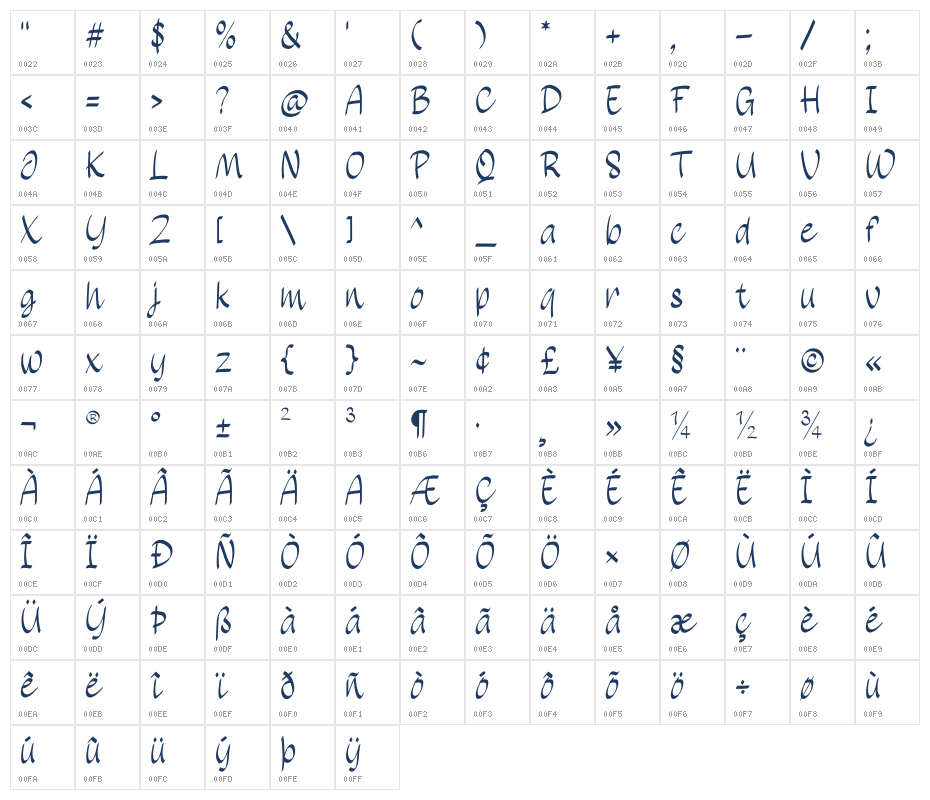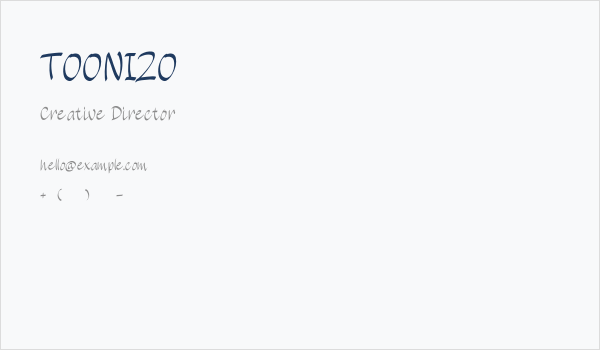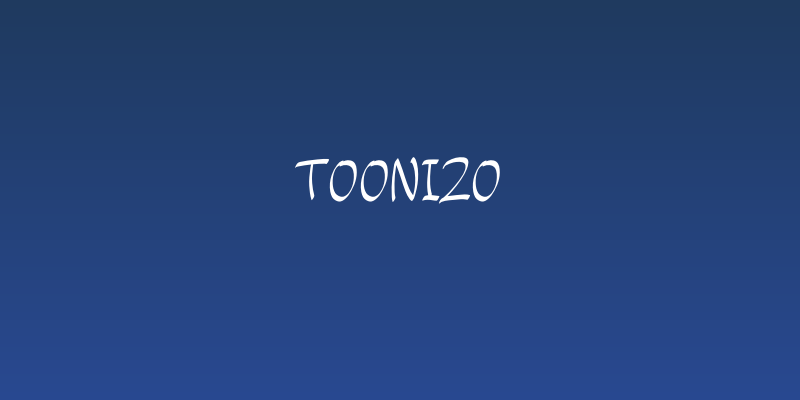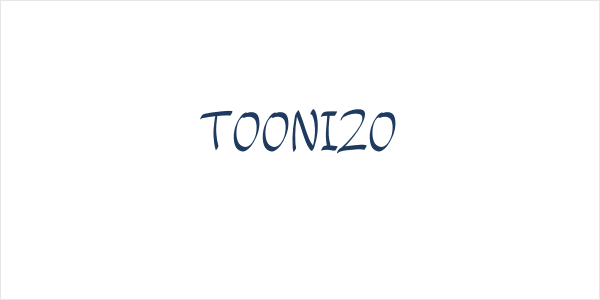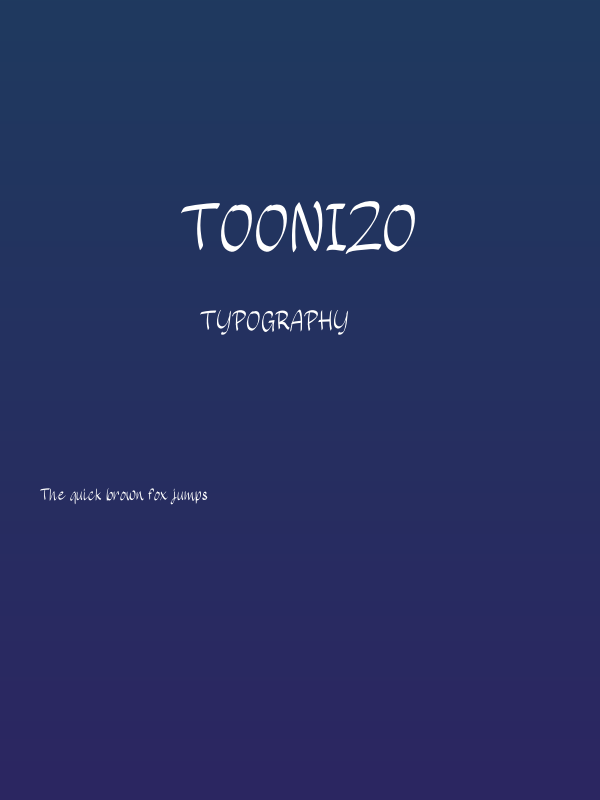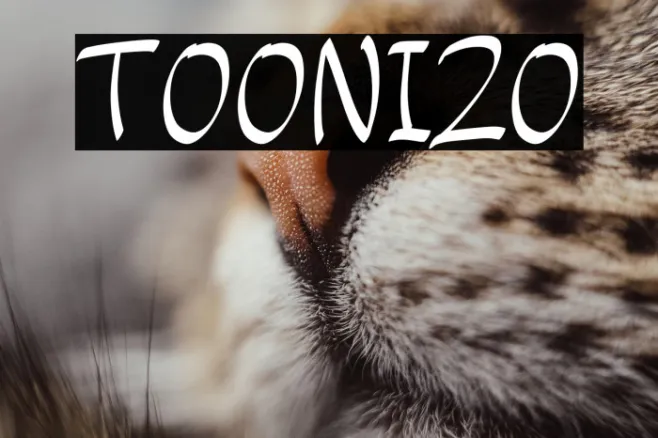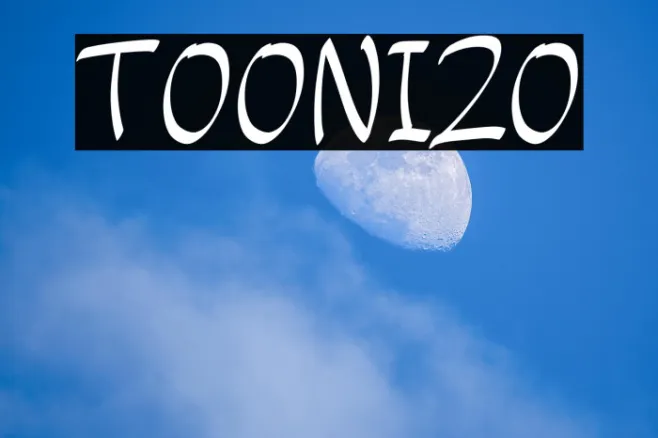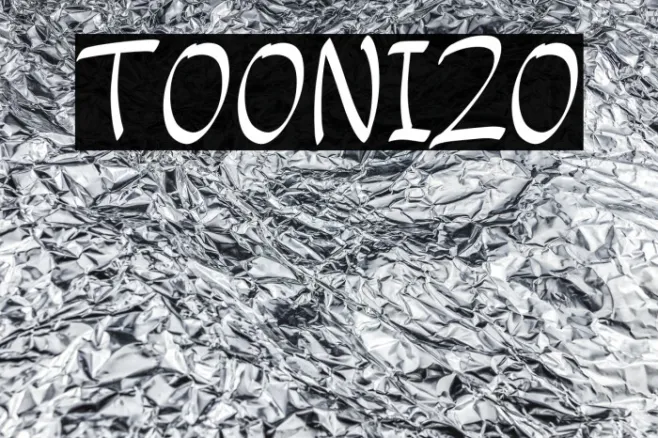
TOONIZO Font
TOONIZO Description
A handwritten, brush script font with a casual and artistic style, featuring varied stroke widths and a slightly irregular, flowing appearance.
| Overall Style | Casual, Artistic, Handwritten |
| Use Case | Invitations, Greeting Cards, Logos, Branding, Artistic Projects |